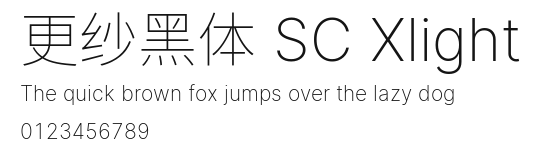
更纱黑体 SC Xlight Preview
• Font Name: 更纱黑体 SC Xlight
• Font ID: 更纱黑体 SC Extralight
• Full Font Name: 更纱黑体 SC Xlight
• PostScript Name: Sarasa-Gothic-SC-Extralight
About 更纱黑体 SC Xlight.ttf
更纱黑体 SC Xlight.ttf is a modern, elegant sans-serif font designed for ultimate readability and visual harmony. Perfect for branding, headlines, web design, and print materials.